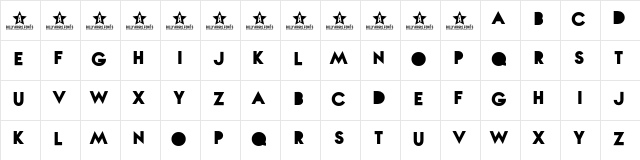
Nova SOLID SOLID
| Foundry | Billy Argel |
| Designer | Billy Argel |
Design Context for Nova SOLID Typeface
Nova SOLID offers clean, dependable letterforms without strong stylistic allegiance, making it a practical choice for designers who need flexibility.
Pro Tip: Pair Nova SOLID with a font of contrasting weight or personality to build a more expressive typographic hierarchy.